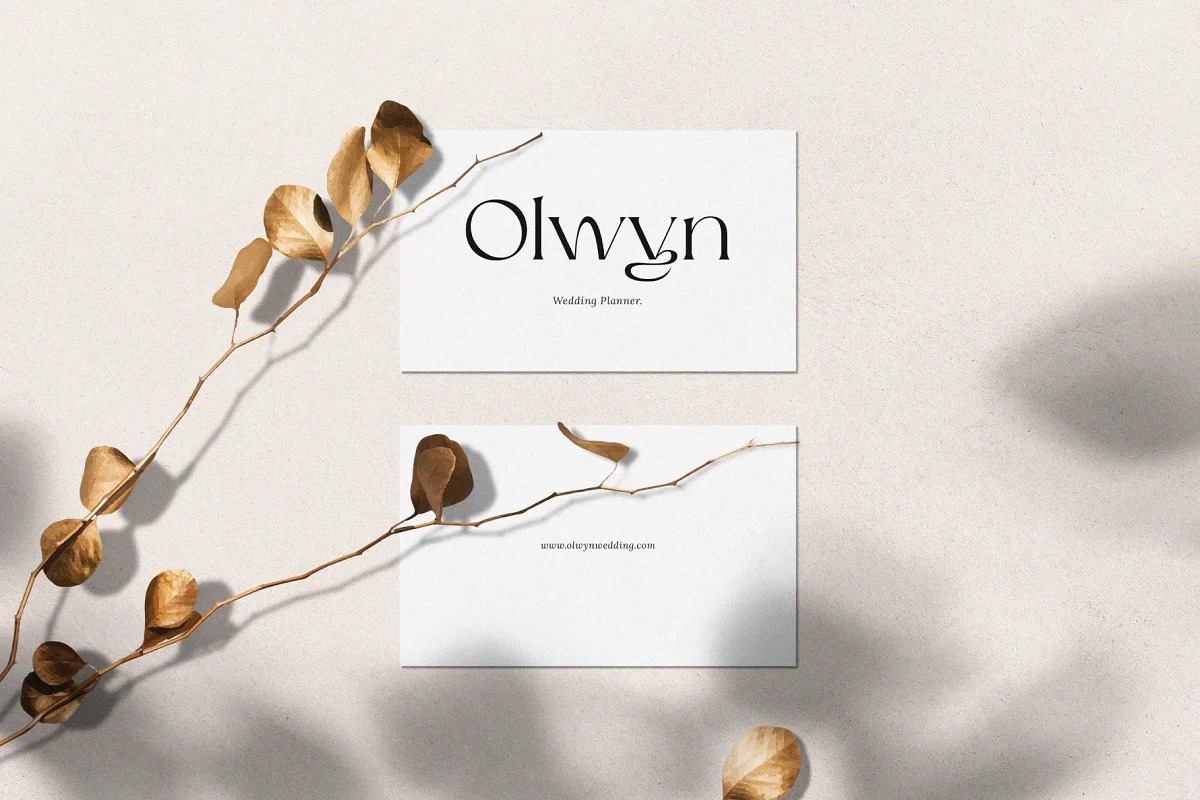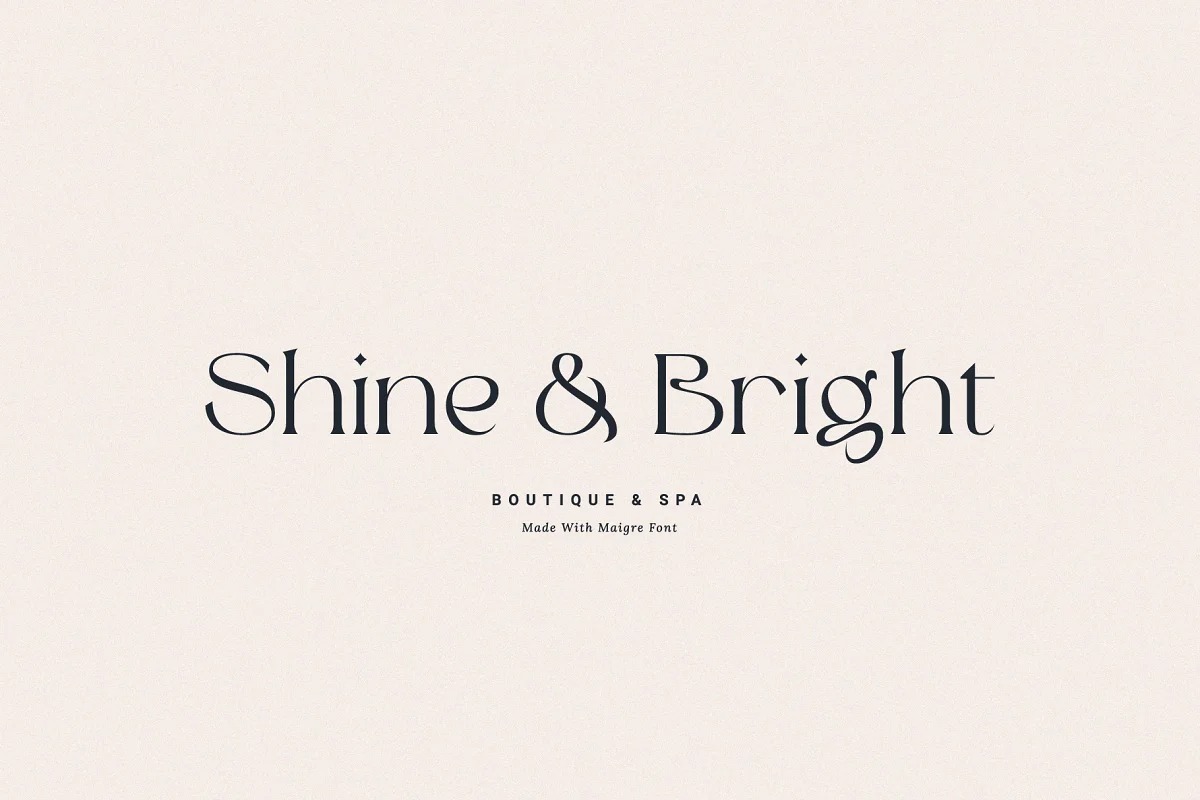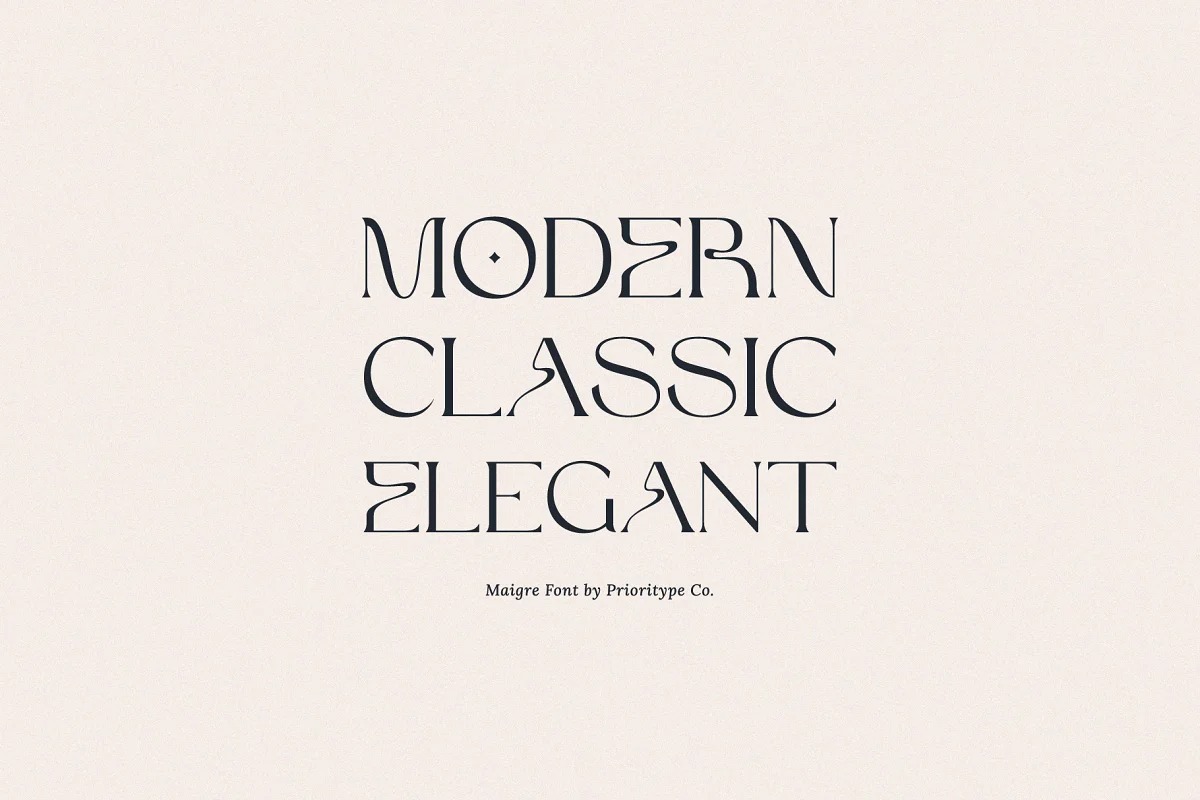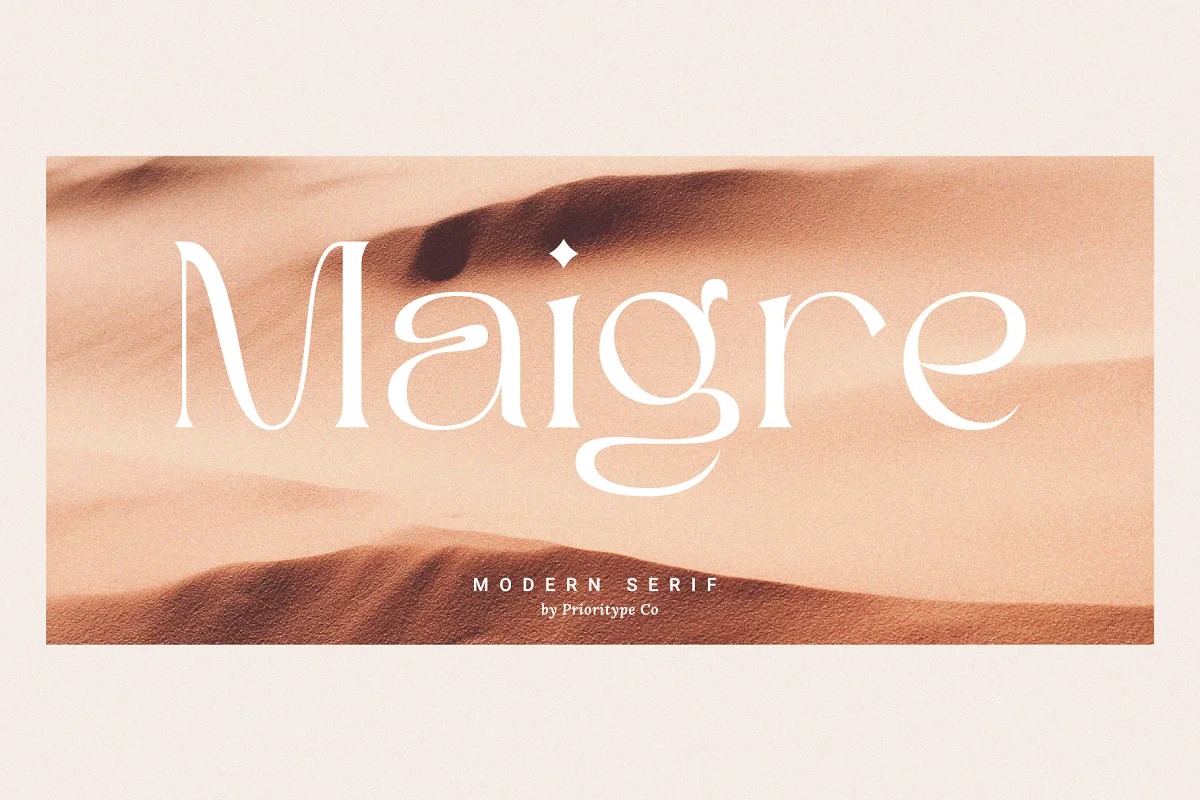
Maigre Font
Maigre Serif Font
If you’re looking for a serif typeface to attract your audiences or customers then we’ve got the font for you! Maigre is a stylish modern font Serif. Minimalist character that allowing you to easily edit the designs. It is suitable for branding designs, logos, magazines and social media posts.